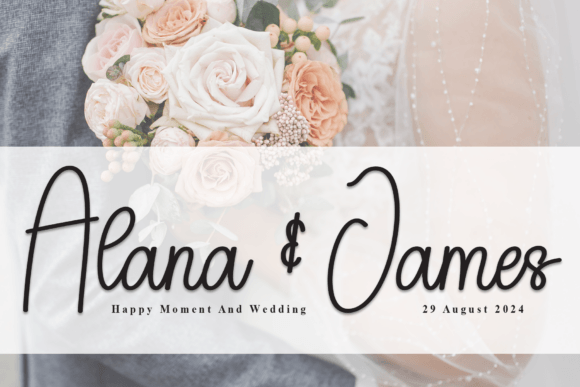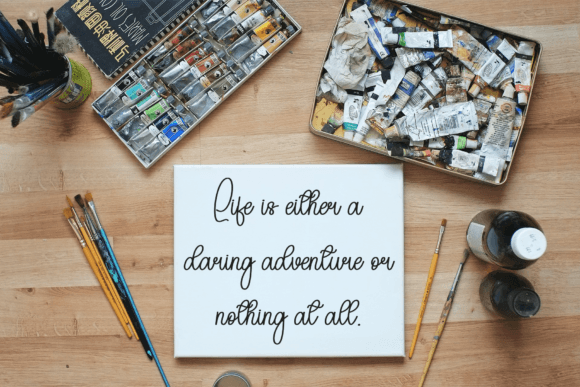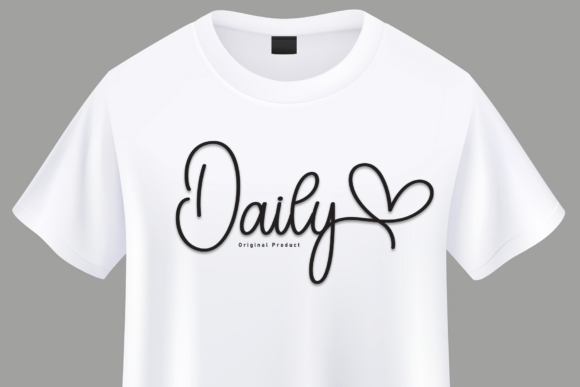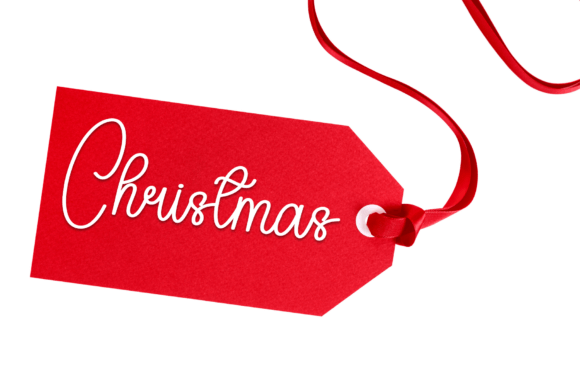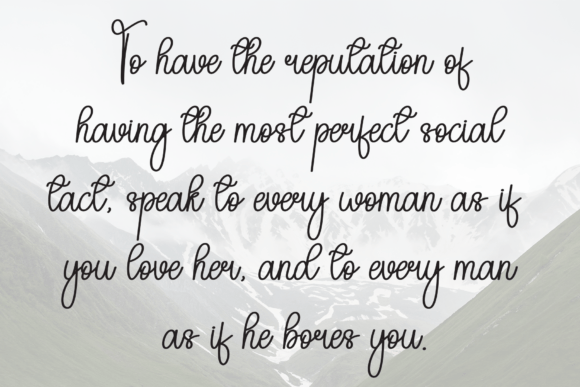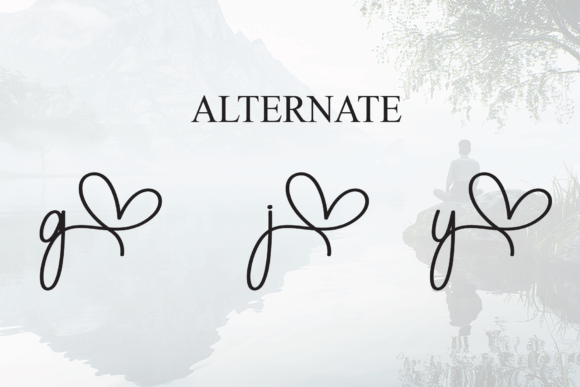
Discover the Charm of Calming Fonts: Elevate Your Designs with a Delightful Handwritten Display Font
In the world of typography, fonts play a crucial role in conveying the tone and personality of a design. Whether you’re a designer, crafty DIY enthusiast, or a business owner looking to create a unique brand identity, selecting the right font can make all the difference. If you’re searching for a font that exudes warmth, playfulness, and sophistication, look no further! Introducing a delightful and welcoming handwritten display font that’s sure to breathe life into your wedding invitations, greeting cards, and designs craving a sprightly touch.
The Perfect Blend of Playful and Sophistication
This charming font is carefully crafted to strike the perfect balance between playfulness and sophistication. Its endearing and amusing nature makes it an excellent choice for designs that require a touch of whimsy and fun. The font’s unique character set and handwritten style add a personal touch to any design, making it perfect for wedding invitations, greeting cards, and other celebratory materials.
Breathe Life into Your Designs
With this delightful font, you can add an unmissable, spontaneous spark to your design palette. Its charming and welcoming nature turns ordinary designs into extraordinary ones, making it perfect for designers and crafters looking to create something truly special. Whether you’re designing a wedding invitation, a greeting card, or a social media graphic, this font is sure to elevate your design and leave a lasting impression.
Key Features of the Calming Font
- Handwritten display font: A unique and personal touch that adds warmth and character to your designs.
- Perfect blend of playful and sophistication: A delicate balance that makes it suitable for a wide range of designs, from wedding invitations to social media graphics.
- Charming and welcoming nature: Adds a touch of whimsy and fun to your designs, making them stand out from the crowd.
- Enduring and amusing: Creates a lasting impression and makes your designs more engaging and memorable.
Use Cases for the Calming Font
This versatile font can be used in a variety of design projects, including:
- Wedding invitations: Add a touch of romance and whimsy to your wedding stationery.
- Greeting cards: Create personalized and charming greeting cards for special occasions.
- Social media graphics: Elevate your social media graphics with a font that’s both playful and sophisticated.
- Branding and packaging: Use the font to create a unique and memorable brand identity.
In conclusion, this calming font is a perfect addition to any designer’s toolkit. Its unique blend of playfulness and sophistication makes it an excellent choice for a wide range of design projects. Whether you’re a seasoned designer or a crafty DIY enthusiast, this font is sure to elevate your designs and add a touch of whimsy and fun. So why wait? Discover the charm of calming fonts and take your designs to the next level!